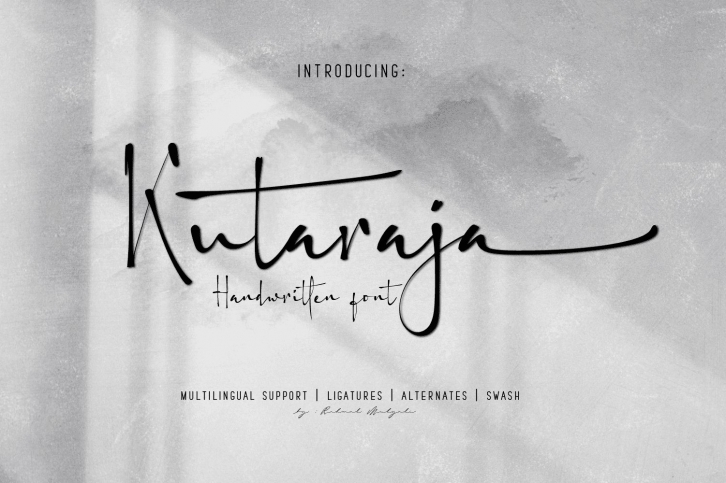
Kutaraja is a gorgeous font that was realeased on January 18, 2021. The font can be used in many style contexts and design environments. Perfect for invitations, magazines, websites, logos, and more! It was designed by BaronWNM and the file size is 2.30 MB. Thanks for checking out this font!